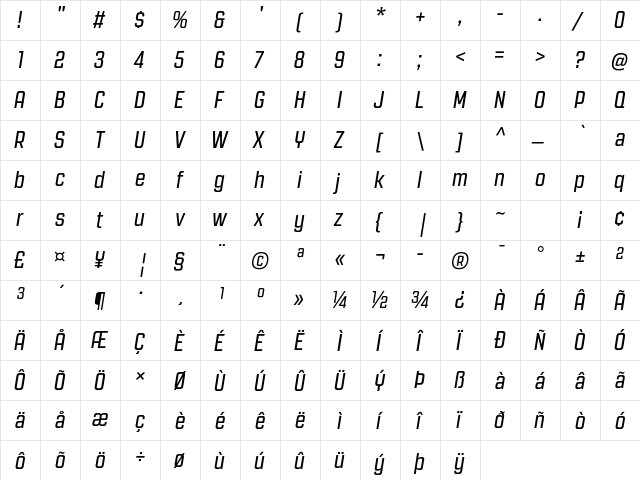
Revolution Gothic Regular
| Foundry | Ryoichi Tsunekawa |
| Designer | Ryoichi Tsunekawa |
Design Context for Revolution Gothic Typeface
Revolution Gothic takes a clean, functional approach — its unadorned letterforms prioritise legibility and work reliably across screen and print environments.
Font Pairing: Works well alongside a characterful serif or display font that can carry the expressive load while Revolution Gothic handles the functional copy.
Pro Tip: Pair Revolution Gothic with a display or serif font for headlines — its neutral character makes it an excellent supporting player in complex typographic systems.